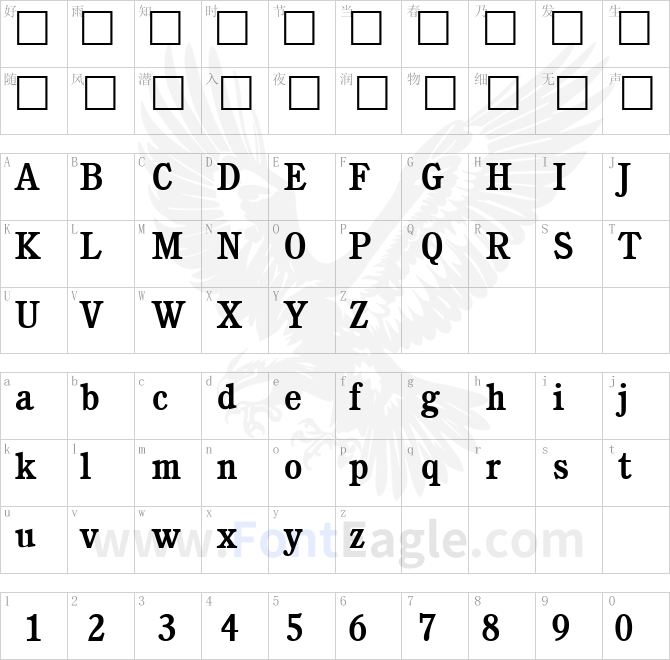
Calgary-Medium is a great font, widely used in graphic design, single-page menu design, poster design and other fields, and is deeply loved by designers.Calgary-Medium download.